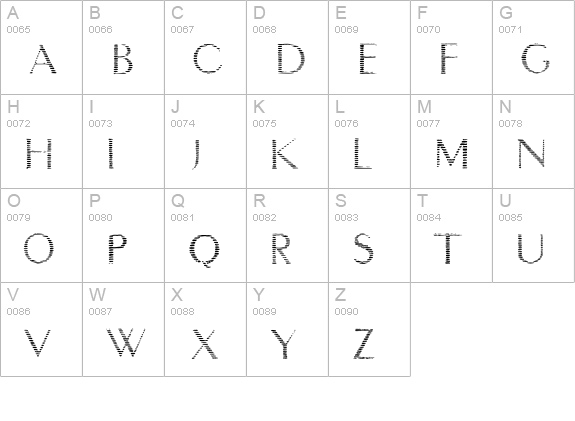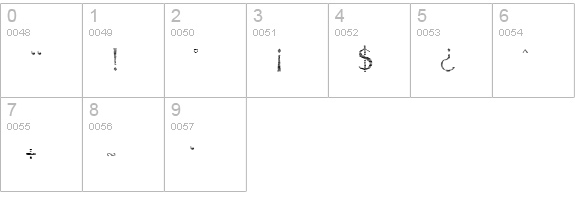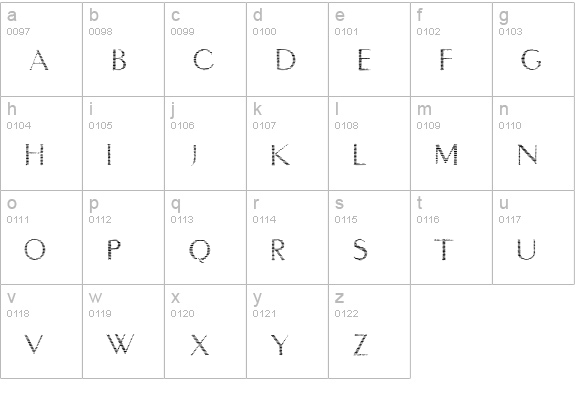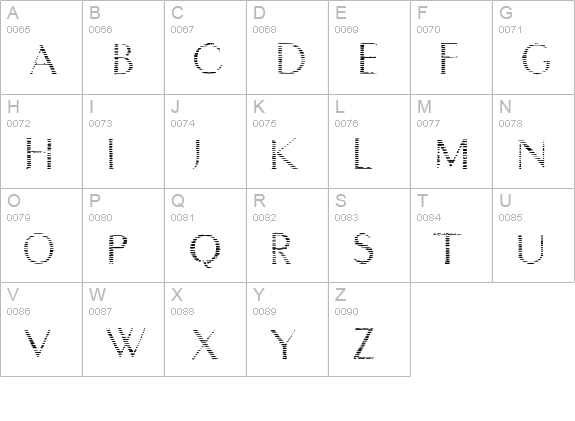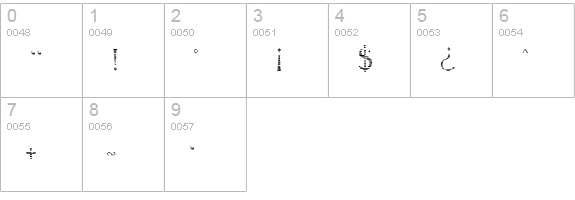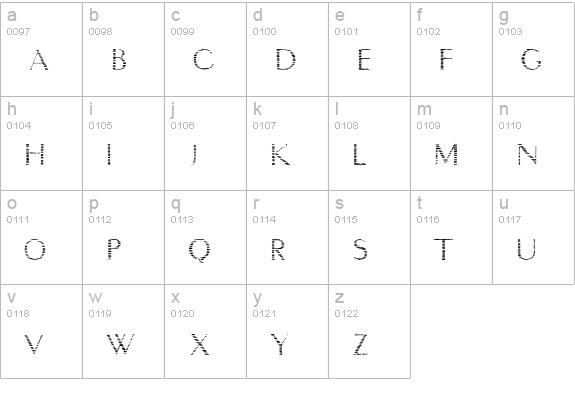
intimacy deux Font Details
Introducing Intimacy Deux Font, a passionately crafted typeface designed to bring an element of love and tenderness to your projects. This font exudes an air of intimacy, capturing the essence of heartfelt connections and the beauty of close relationships. With its delicate curves and elegant strokes, Intimacy Deux Font conveys a sense of warmth and comfort, allowing your words to embrace the reader with every letter. Its graceful nature is perfect for creating invitations, love letters, wedding stationery, or any design that aims to evoke emotions of love and togetherness. What sets Intimacy Deux Font apart is that it is freely available to download at FontsMarket.com. This means that you can effortlessly infuse your designs with a touch of romance without any financial constraints. Whether you are a professional designer or a DIY enthusiast, this font opens up a world of creative possibilities, allowing you to express your emotions freely through typography. Intimacy Deux Font offers a range of uppercase and lowercase letters, numerals, punctuation marks, and ligatures, all meticulously crafted to ensure a seamless and harmonious look. Its versatile nature enables it to beautifully complement a variety of design styles, from elegant and classic to modern and contemporary. So, why wait? Experience the power of intimacy in your designs with Intimacy Deux Font, freely available for download at FontsMarket.com. Let your words caress the hearts of your audience and create an everlasting impression with this enchanting typeface.